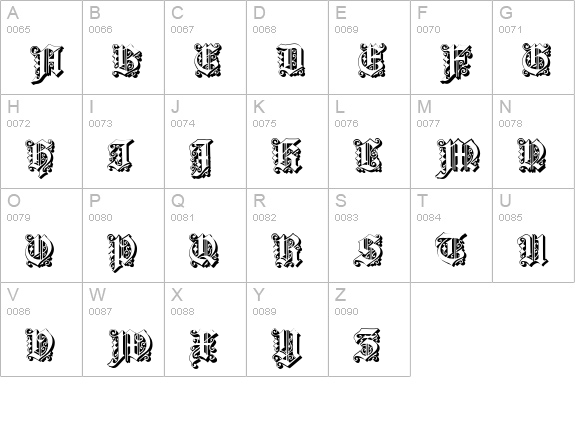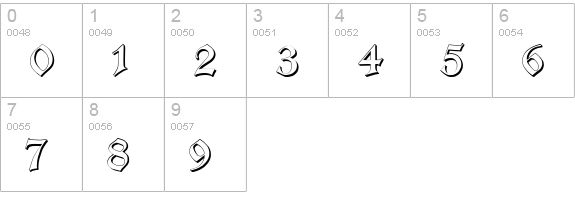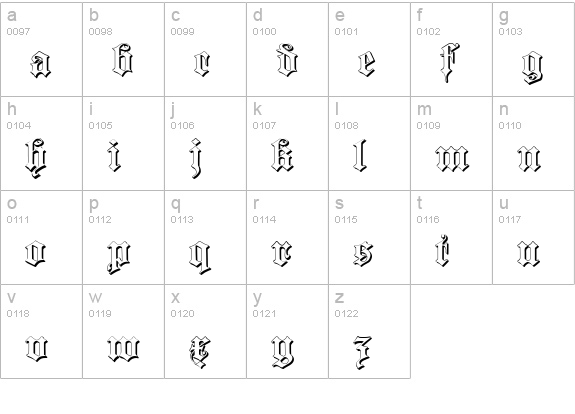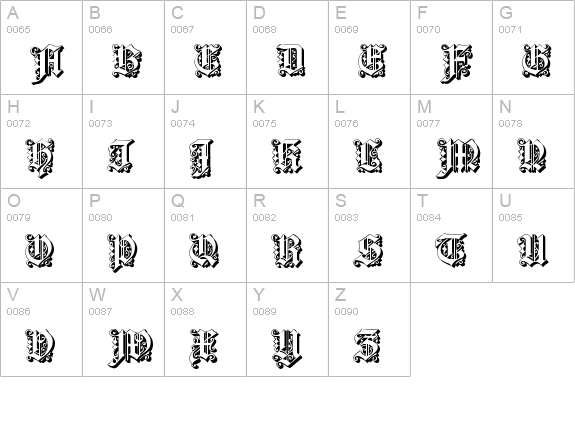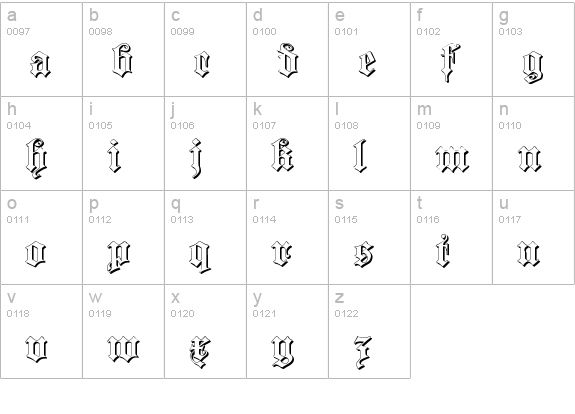
Introducing Dearest Outline font, a stunning typeface that effortlessly combines elegance with a touch of whimsy. This captivating font is the perfect choice for those looking to add a unique and eye-catching element to their designs. With its precise and intricate outlines, Dearest Outline font exudes a sense of sophistication and modernity. Each letter is meticulously crafted, ensuring a flawless and seamless appearance. Whether used for logos, headlines, or body text, this font is guaranteed to make a bold statement. What sets Dearest Outline font apart is its versatility. It can effortlessly adapt to a wide range of design projects, from branding and packaging to social media graphics and website designs. Its clean and crisp lines make it highly legible, even at smaller sizes. And the best part? Dearest Outline font is available for free! That's right, you can download this exceptional font at FontsMarket.com without any cost. This makes it an ideal choice for designers, students, and anyone looking to add a touch of elegance to their projects without breaking the bank. So why wait? Don't miss out on the opportunity to enhance your designs with Dearest Outline font. Download it today and let your creativity soar!